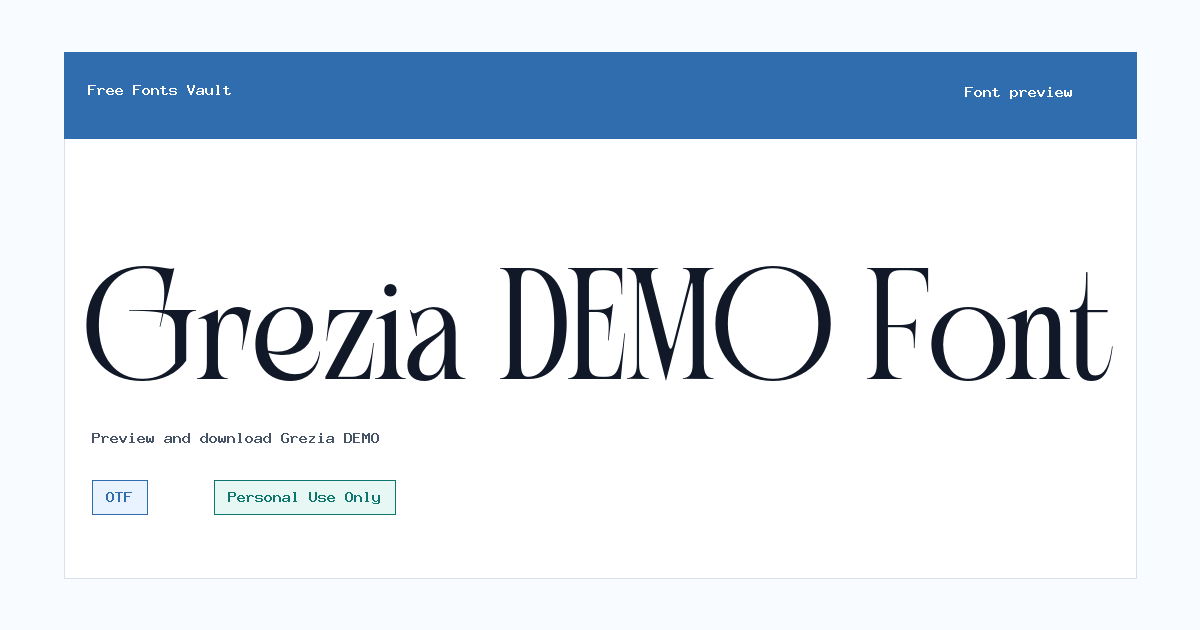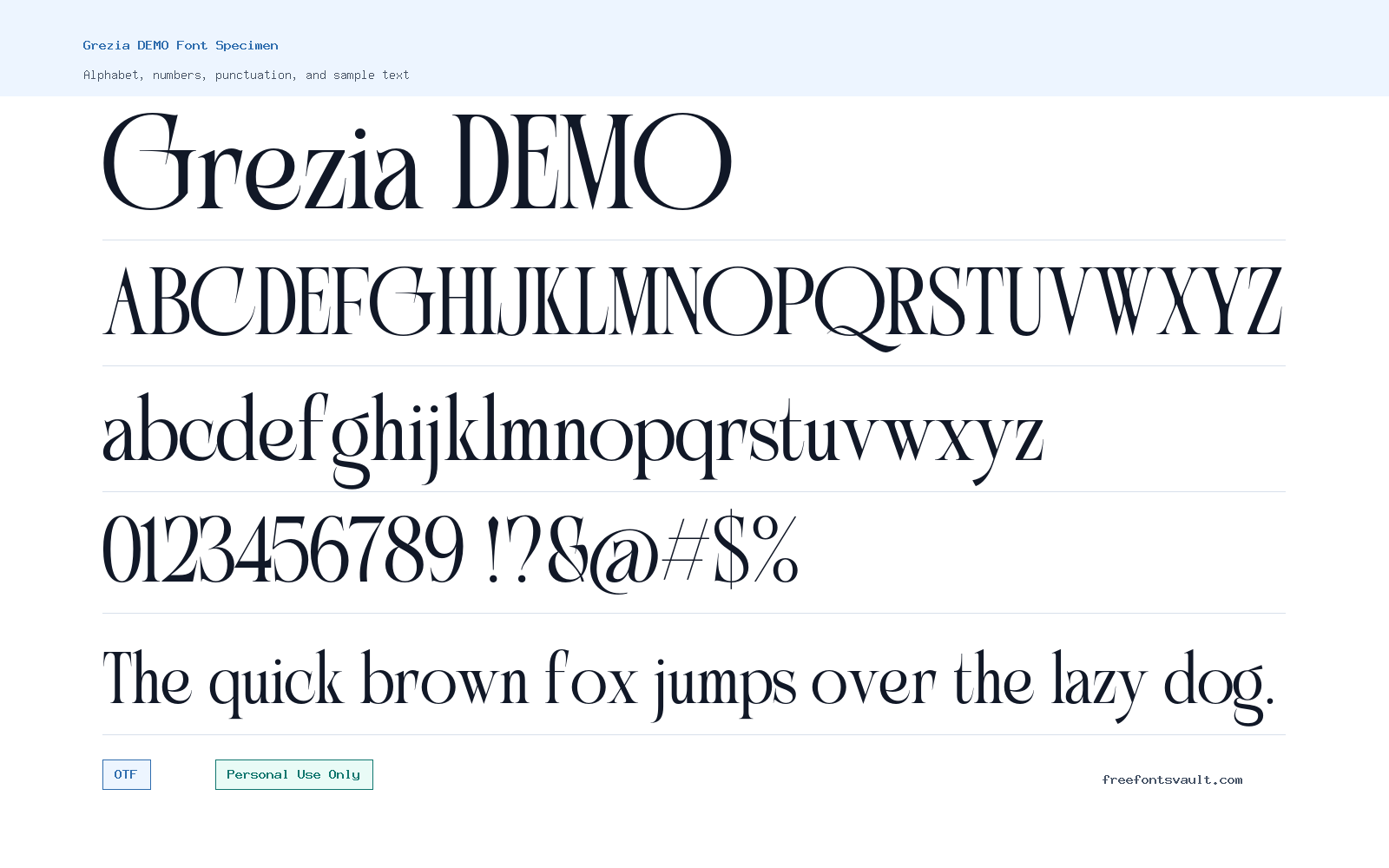
Grezia DEMO
- Designer Ratna Krismawati
- Foundry Krismagraph
Grezia DEMO font.
Grezia DEMO is a serif font from Ratna Krismawati and Krismagraph, offered in a regular OTF style for personal-use design testing, mockups, and display typography.
About Grezia DEMO
Grezia DEMO is best approached as a display-friendly serif for designers who want to test a refined text style before committing it to a project. The name and file label identify this as a demo version, so it should be used with extra attention to licensing and character coverage. Because only the regular style is present, it works most naturally when you need one clear typographic voice rather than a full family with bold, italic, or multiple weights. Try it first in the preview box with the exact words you plan to use, especially if your design depends on names, short phrases, accented characters, punctuation, or numbers.
For practical use, Grezia DEMO is more suitable for short, controlled settings than long reading layouts. It can be tested for logo drafts, branding sketches, invitation headings, poster titles, quote graphics, packaging mockups, mood boards, and social media visuals. If you are building a website concept, it may work well in hero headings or image-based mockups, but body text should be checked carefully for readability at smaller sizes. Since there is only a regular OTF file, pair it with a simple sans serif for menus, captions, paragraphs, buttons, and UI labels. A clean sans serif can keep the layout easy to read while letting Grezia DEMO carry the visual emphasis in headlines.
When using Grezia DEMO for logo work, test both uppercase and lowercase versions of the brand name. Some serif fonts look elegant in one letter mix and less balanced in another, so preview the exact spelling rather than judging from a sample word. Also test tight and loose tracking. A little extra spacing can help a display serif feel more polished, while too much spacing can make words feel disconnected. For posters and web mockups, compare the font at large sizes, medium heading sizes, and mobile widths. If the design loses clarity when scaled down, keep it for hero text and use a simpler companion font for supporting copy.
- Serif demo style suited to short display text, logo drafts, poster headings, and branding mockups.
- Single 400-weight normal style, making it simple to test but not a full multi-weight type family.
- Logo concepts and brand-name sketches where a serif display style is needed.
- Poster titles, event graphics, and invitation headings.
- Social media quote cards, mood boards, and visual identity drafts.
- Website hero mockups, landing page concepts, and editorial-style headings.
- Personal design practice, non-commercial artwork, and typography experiments.
Grezia DEMO is credited to designer Ratna Krismawati and foundry Krismagraph.
Does Grezia DEMO include multiple weights?
The available style is regular, with normal style and 400 weight. No bold, italic, or additional weights are indicated.
What is Grezia DEMO best used for?
It is best tested for short display uses such as logo drafts, poster headings, invitations, social graphics, branding mockups, and website hero text.
Is Grezia DEMO a good body text font?
It is better to test it as a display font first. For long paragraphs, pair it with a simpler, highly readable text font unless your preview confirms that it reads well at small sizes.